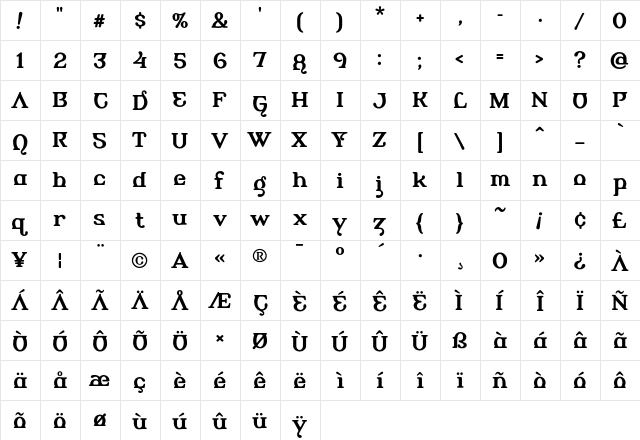
Alembic BoldTwo
Design Context for Alembic Typeface
Alembic offers clean, dependable letterforms without strong stylistic allegiance, making it a practical choice for designers who need flexibility. The heavy weight commands attention and anchors typographic hierarchies.
Pro Tip: Pair Alembic with a font of contrasting weight or personality to build a more expressive typographic hierarchy.